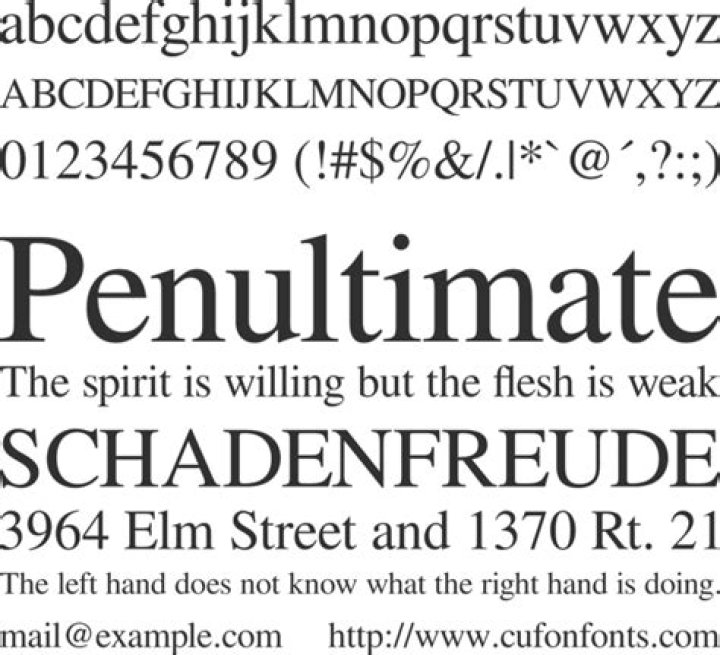
I am writing a book using LibreOffice. Until recently I used Ubuntu 12.04 and LibreOffice 3.5.7.2. The body text of the book is typeset with FreeSerif 11pt. Before my upgrade to Ubuntu 14.04 and LibreOffice 4.2.6.3 (which came with 14.04), the book had 210 pages. After the upgrade the book has 195 pages, because the FreeSerif font now was more condensed.
When I open the odt file in a different computer with Ubuntu Desktop 12.04 and LibreOffice 3.5.7.2, the book has 210 pages, and so it has when I open the same file in a computer with Windows 7 and LibreOffice 4.2.6.3 the book has 210 pages. (Of course the Free* fonts are installed in all computers.)
So with 14.04 and 4.2.6.3 the FreeSerif font is rendered differently. The difference is big, about 7%, which makes the text look ugly, and the line breaks and the hyphenation have been changed, not to say ruined.
Obviously, there is something wrong with the rendering of the FreeSerif font in the combination of Ubuntu Desktop 14.04 and LibreOffice 4.2.6.3. Will this error be corrected?